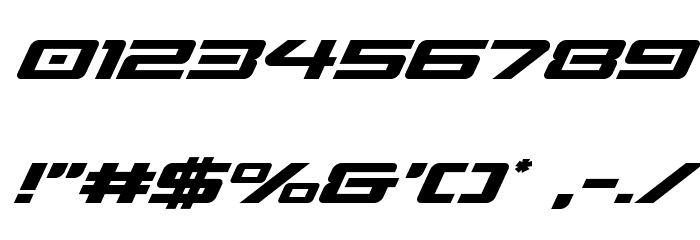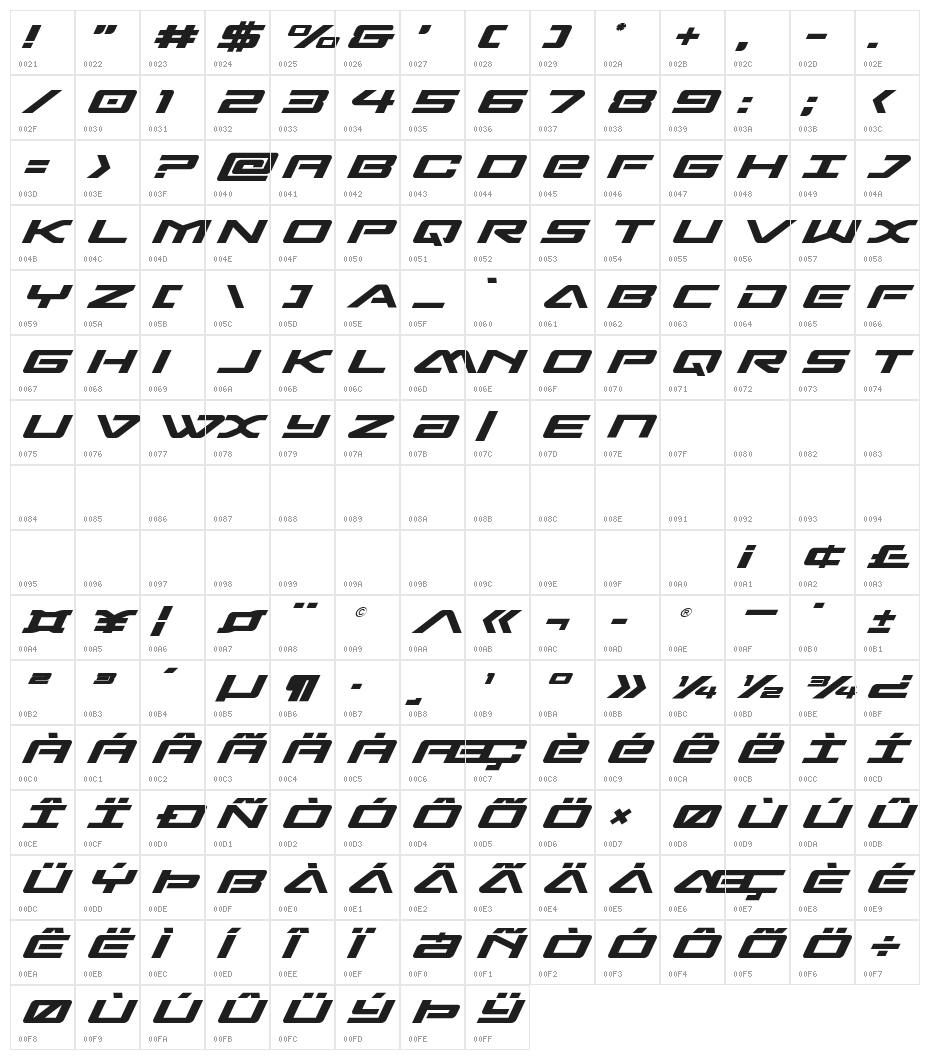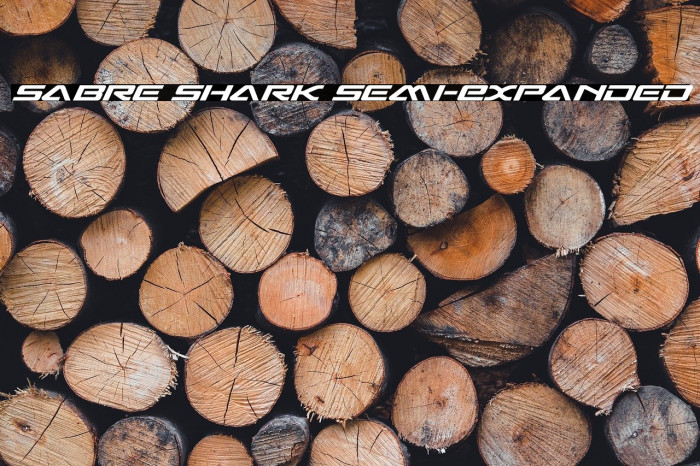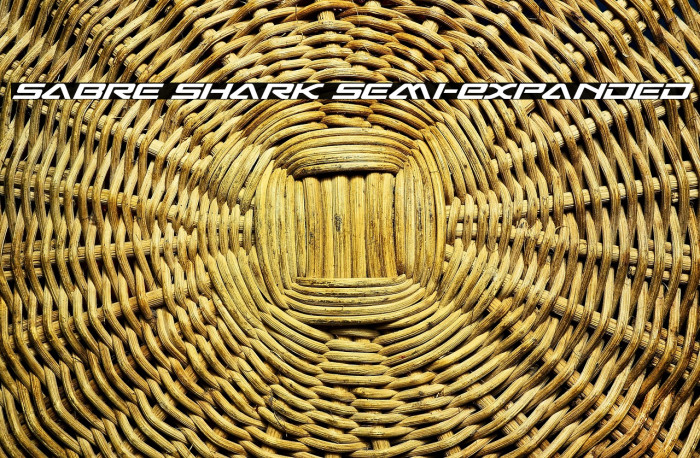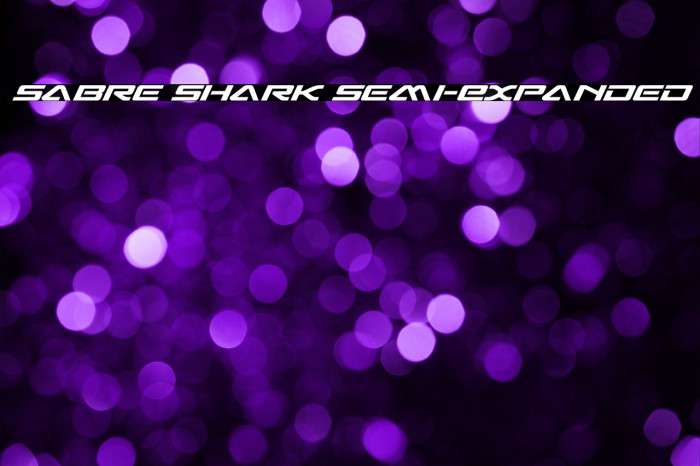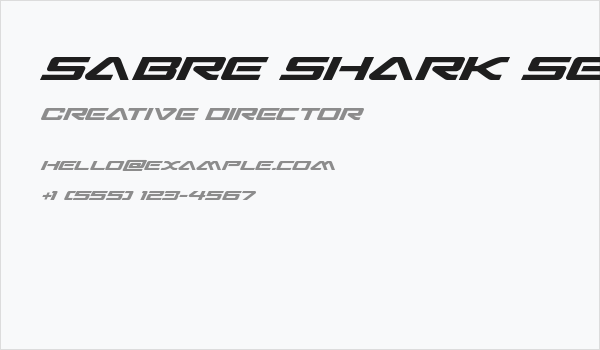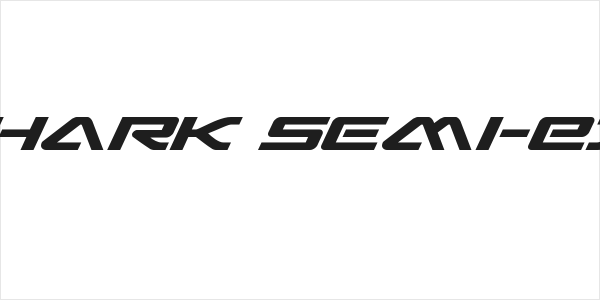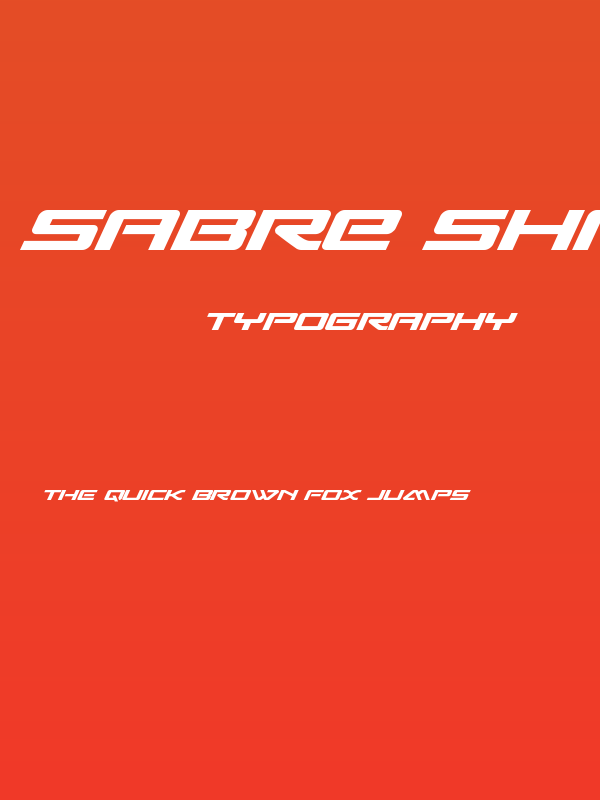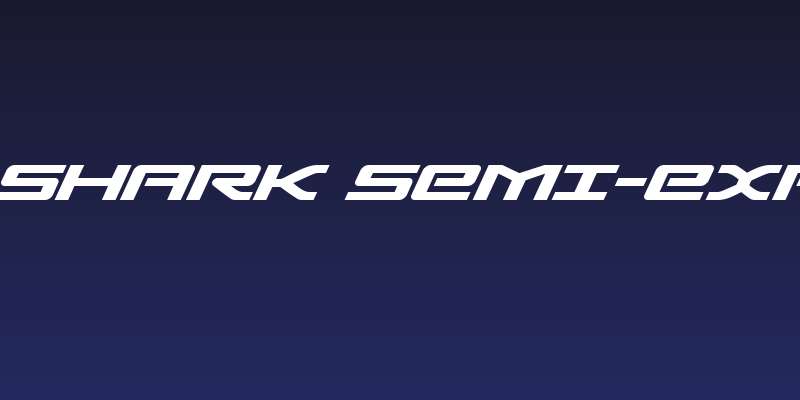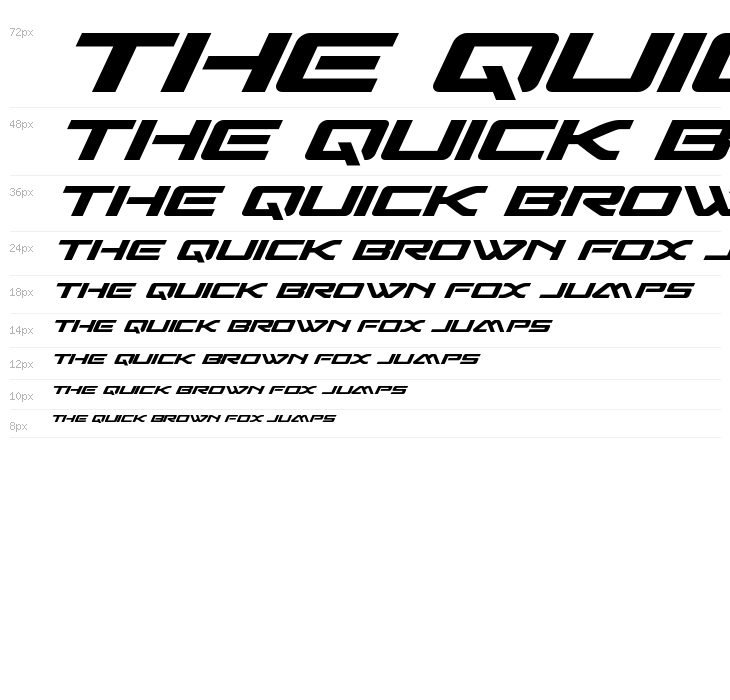
Sabre Shark Semi-Expanded Font
Sabre Shark Semi-Expanded Description
This font features a bold, futuristic design with sharp angles and a semi-expanded width. The characters are slightly slanted, giving a dynamic and forward-moving appearance. The uppercase letters are distinct with geometric shapes, while the lowercase letters maintain a consistent style. The numerals are bold and match the overall aesthetic, making them suitable for impactful displays. Special characters are designed to complement the alphabet, maintaining the same angular and modern look. This font is ideal for projects that require a strong, modern, and tech-inspired feel.
| Proposed Projects | Ideal for technology branding, video game titles, sci-fi posters, and modern logos. |